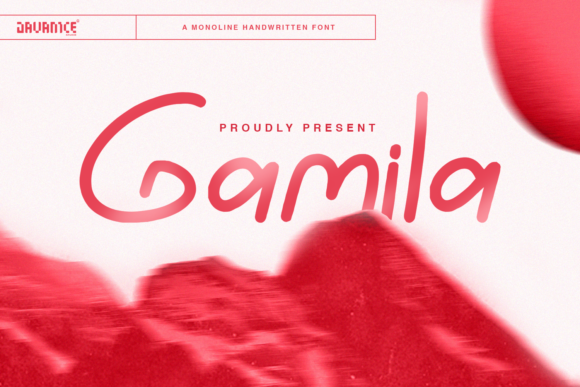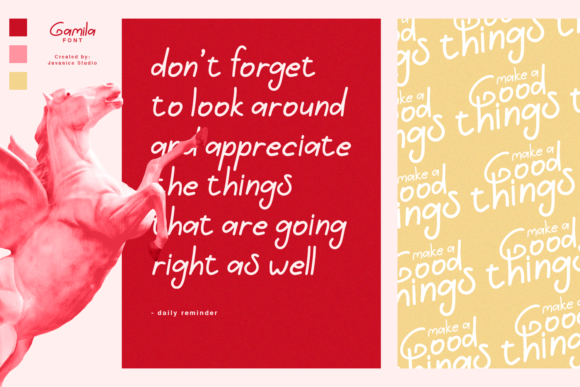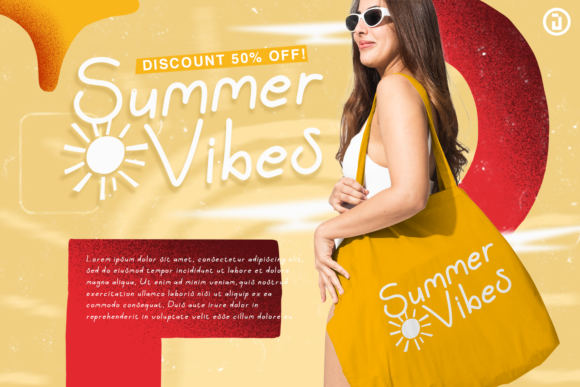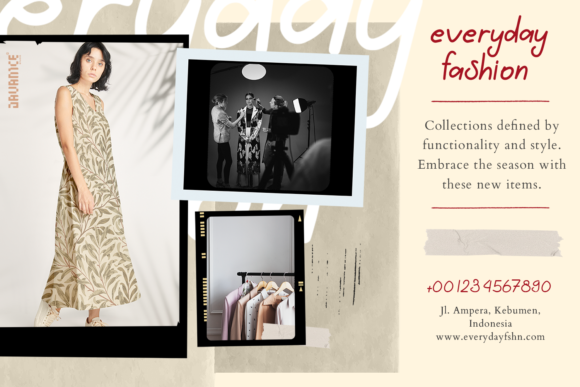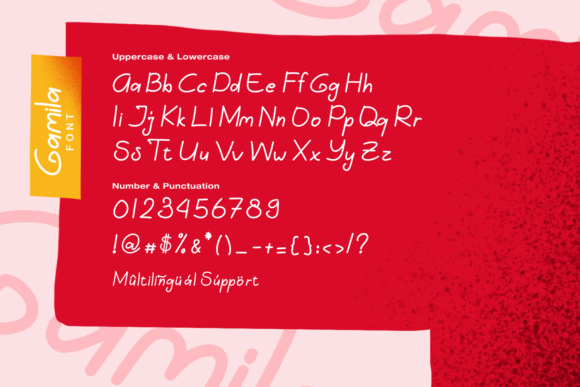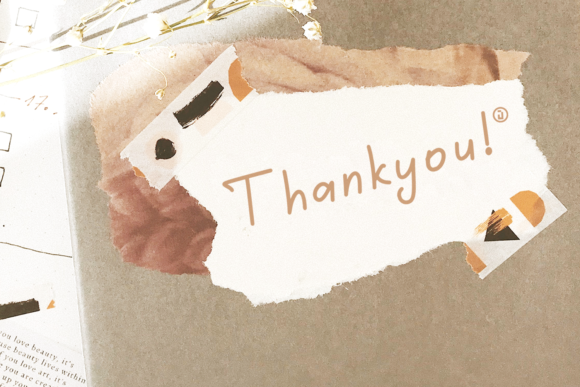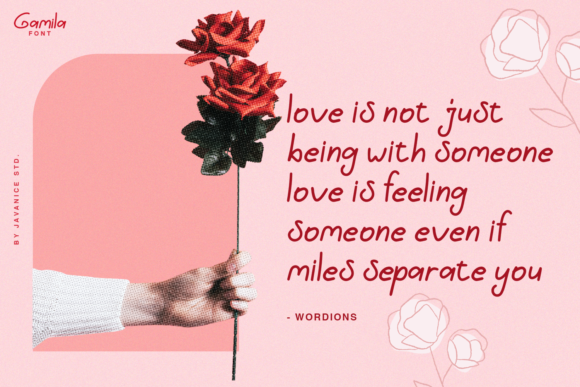
Gamila Font
About Gamila Font
“Gamila” exudes a relaxed and casual handwritten charm, tailored to infuse a laid-back and easygoing feel into your design projects. Its versatility makes it an excellent choice for a range of applications, including product packaging, branding projects, magazine covers, social media content, weddings, or whenever you want to convey words with a relaxed and approachable style against a background.
The font’s casual and handwritten aesthetic creates a friendly and down-to-earth atmosphere within your designs. Imagine “Gamila” enhancing product packaging, where its relaxed style adds a touch of informality and approachability to the overall design. Picture it on a magazine cover, effortlessly capturing attention and exuding a comfortable and welcoming vibe.
For branding projects, “Gamila” can contribute to a brand identity that feels genuine and relatable. Its handwritten charm is well-suited for social media posts, creating a friendly and engaging tone. In wedding materials, the font’s casual nature can bring a modern and relaxed vibe to invitations, RSVP cards, and other related designs.
Whether utilized digitally or in print, “Gamila” adapts flexibly to different design contexts, allowing you to express words with a sense of ease and informality. Its relaxed and casual demeanor makes it an excellent choice for projects where a laid-back and approachable style is desired.
In summary, “Gamila” goes beyond being just a font; it serves as a design tool that introduces a relaxed and casual touch to your creative projects. Its versatility and friendly vibe make it a standout choice for those seeking a font that effortlessly communicates a carefree and approachable aesthetic in various design scenarios.